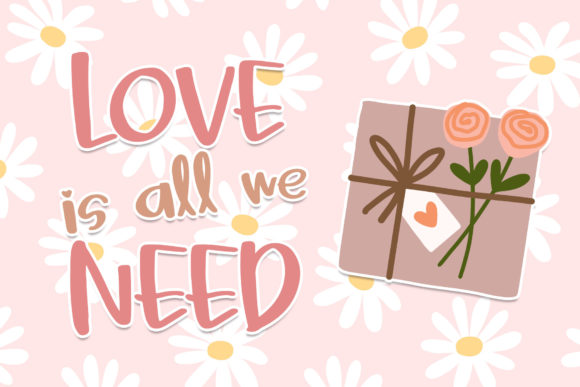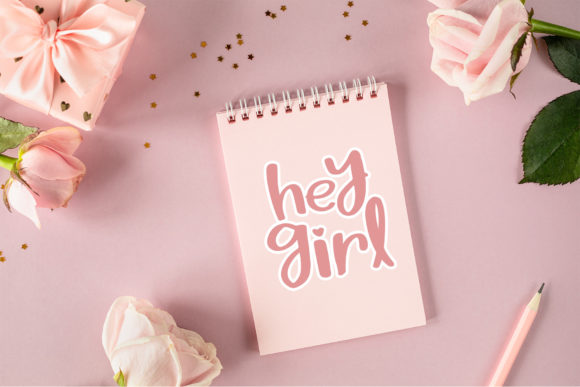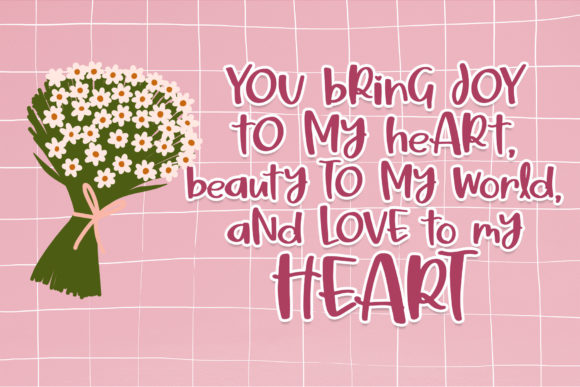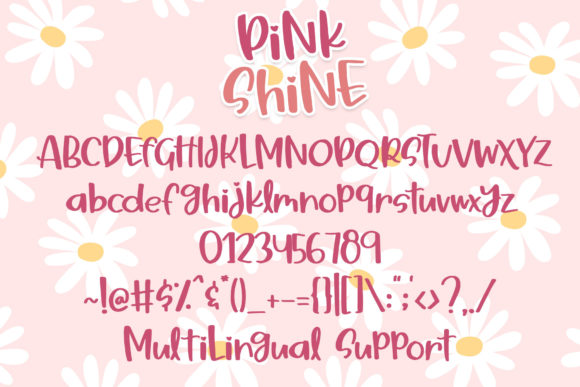
Introduction to Pink Shine Font Font
Fonts play a crucial role in design, and the Pink Shine Font font is a typeface that brings both character and versatility to any project. Whether you’re working on a branding project, a website, or a print design, the Pink Shine Font font offers a unique style that can elevate your work.
Pink Shine is a cool, paint brushed and neat handwritten font.
Whether youβre looking for fonts for Instagram or calligraphy scripts for DIY projects, this font will turn any creative idea into a true piece of art .
Key Features of Pink Shine Font Font
Why Choose Pink Shine Font Font?
The Pink Shine Font font is more than just a typeface β it’s a design tool that helps you communicate your message with style and clarity. Its unique character set and versatile design make it suitable for a wide range of applications, from elegant invitations to bold headlines.
With its carefully crafted letterforms and balanced proportions, the Pink Shine Font font ensures readability and visual appeal across all mediums.
What makes Pink Shine Font font special?
The Pink Shine Font font stands out with its unique design, exceptional readability, and versatility across various design applications.